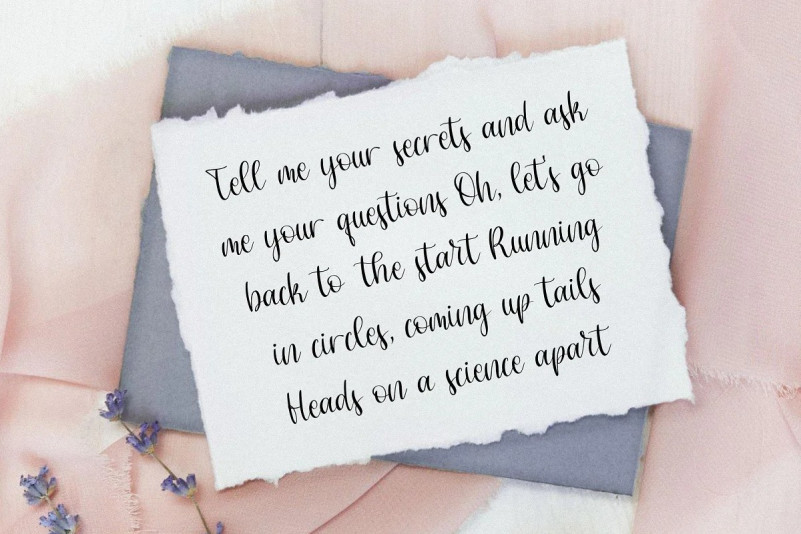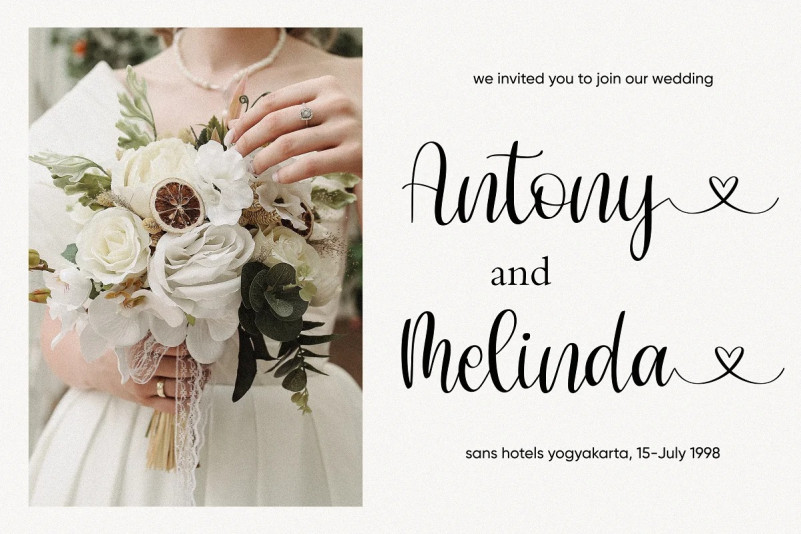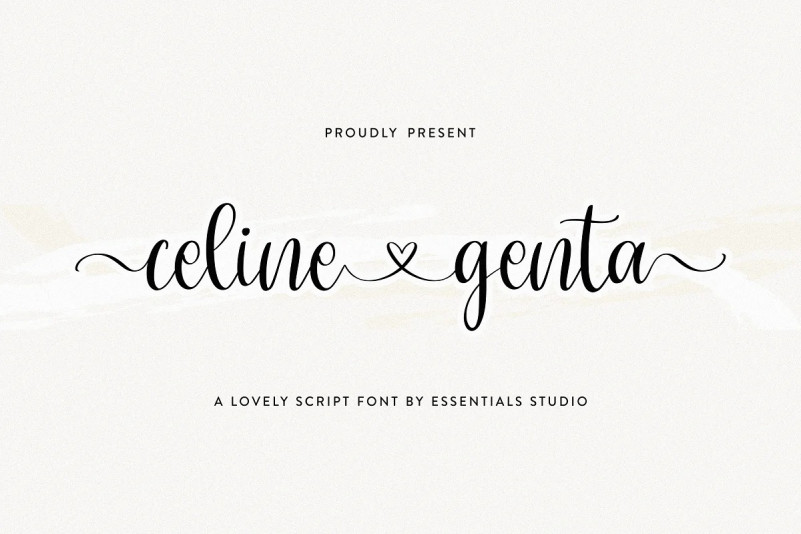
Celine Genta Font
Celine Genta Script Font is a Lovely Script Font With Swash and Ligature More Than 50 Stylish love Alternate
Celine Genta is perfect for product packaging, branding project, megazine, social media, wedding, or just used to express words above the background.